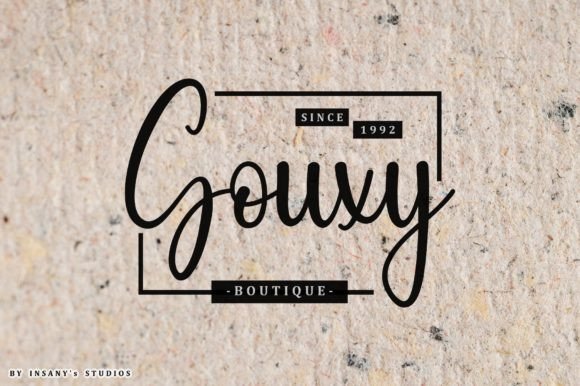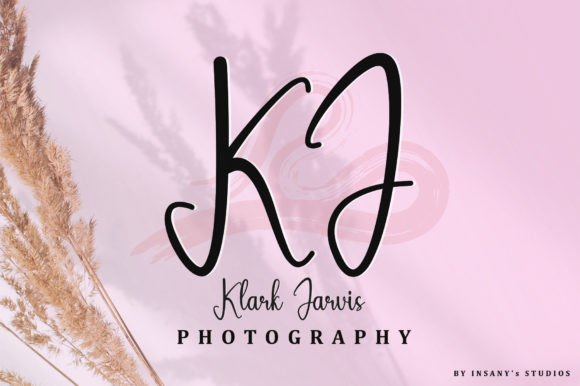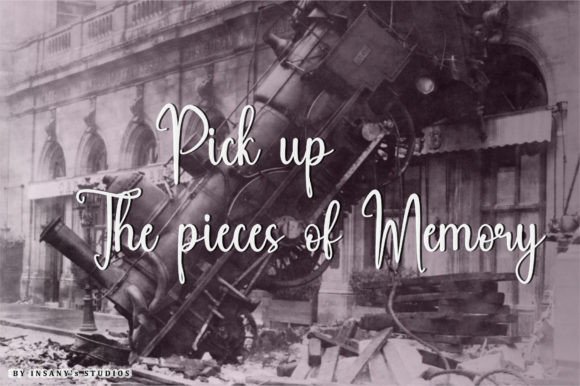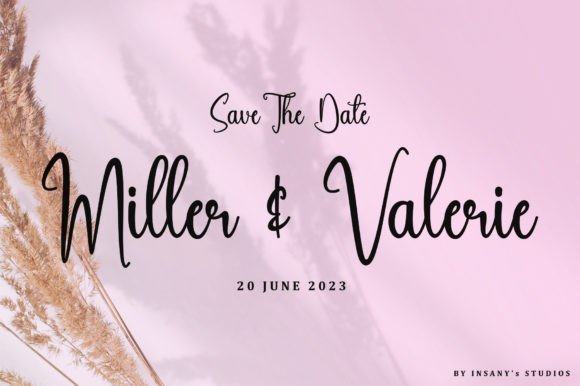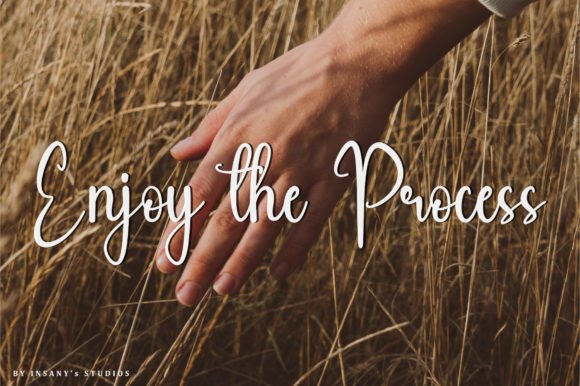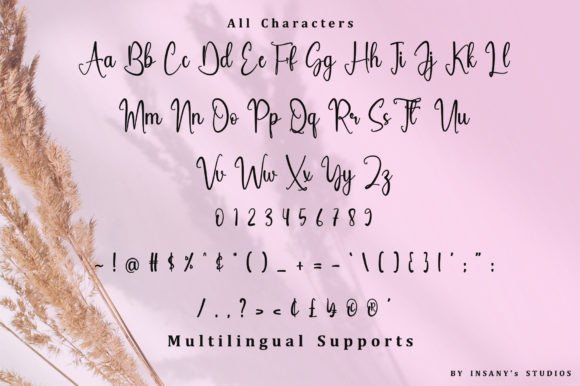
The Aetira Font: A Simple, Soft, and Elegant Design Companion
I’ll never forget the time I was working on a wedding invitation project, and I just couldn’t find the right font to bring the design together. The client wanted something elegant, yet personal, and I was determined to deliver. That’s when I stumbled upon the Aetira font, and it instantly became my go-to choice. In this article, I’ll share my experience with Aetira, its features, and how to make the most of it in your designs.
An Honest Review of Aetira Font
What I Love About Aetira ✨
- ✅ Simple, soft, and elegant feel that works perfectly for wedding invitations, thank you cards, and greeting cards
- ✅ Supports OpenType features, glyphs, and stylistic alternates for added design flexibility
- ✅ Works well for both digital and print designs
While Aetira is an excellent font, there are a few things to keep in mind:
- 🤔 Limited character set compared to some other fonts, which might limit its use for certain projects
- ⚠️ Not ideal for body text or long paragraphs, as it’s better suited for headlines and titles
The Story Behind Aetira Font
Aetira font was designed with the intention of creating a simple, yet elegant font that could be used for a variety of design projects. The designer aimed to create a font that felt both personal and sophisticated, making it perfect for wedding invitations, greeting cards, and other special occasions.
Q: What type of projects is Aetira font best suited for?
A: Aetira font is ideal for projects that require a simple, soft, and elegant feel, such as wedding invitations, thank you cards, quotes, greeting cards, logos, and business cards.
Q: Does Aetira font support OpenType features?
A: Yes, Aetira font supports OpenType features, including glyphs and stylistic alternates, which can be accessed through the font menu in compatible design software.
Q: Can I use Aetira font for body text?
A: While Aetira font is highly legible, it’s better suited for headlines and titles rather than body text or long paragraphs.